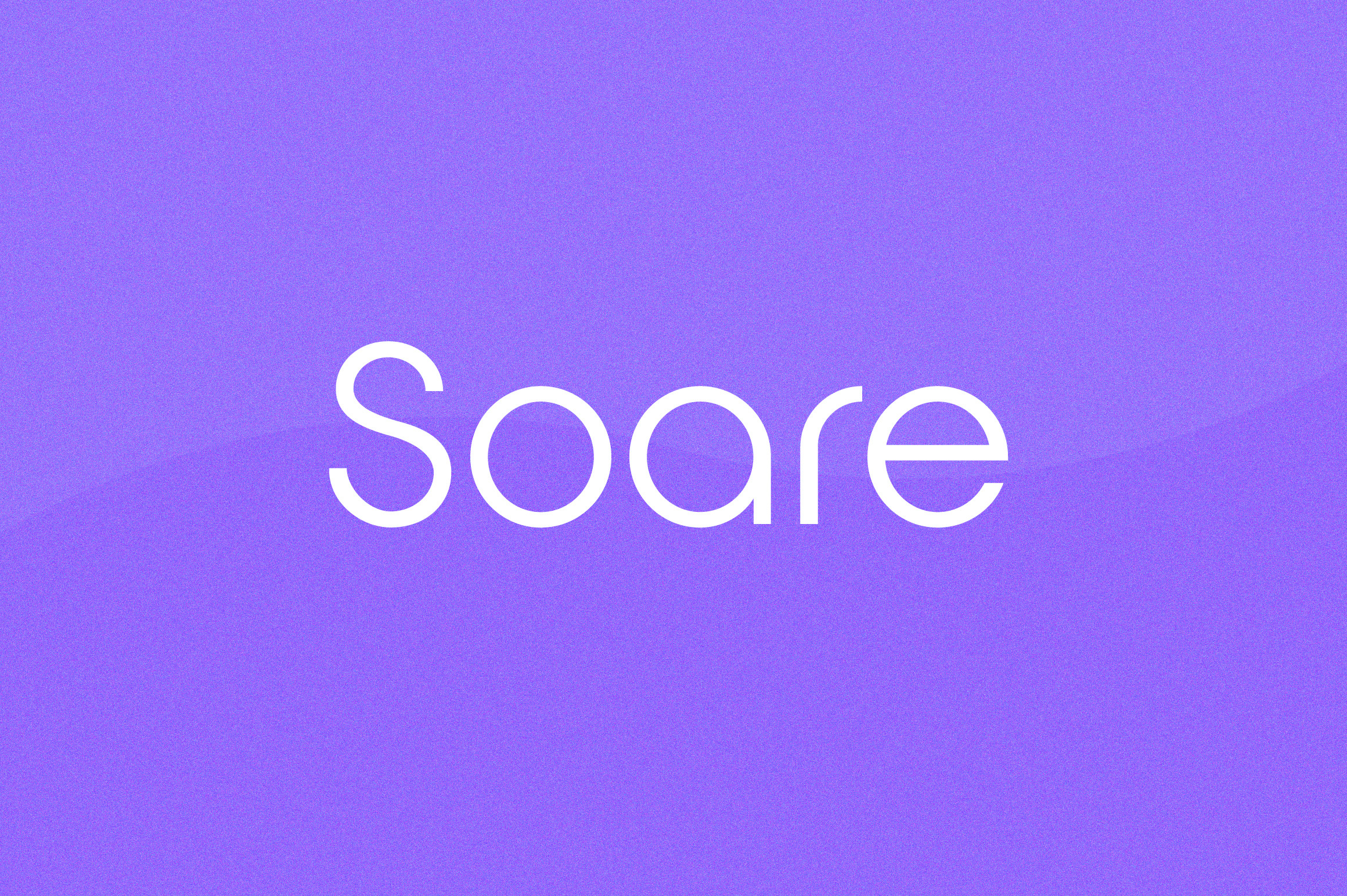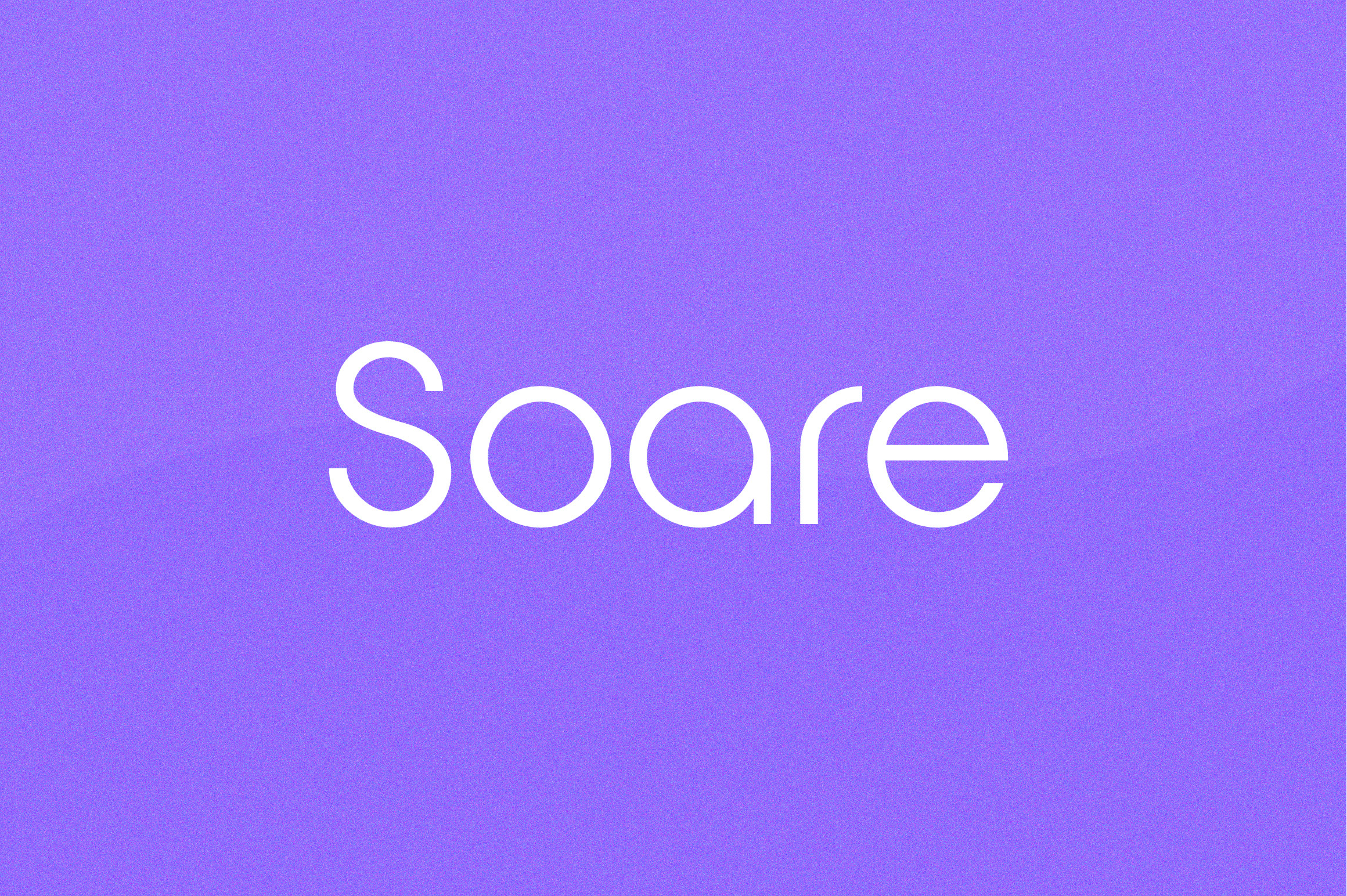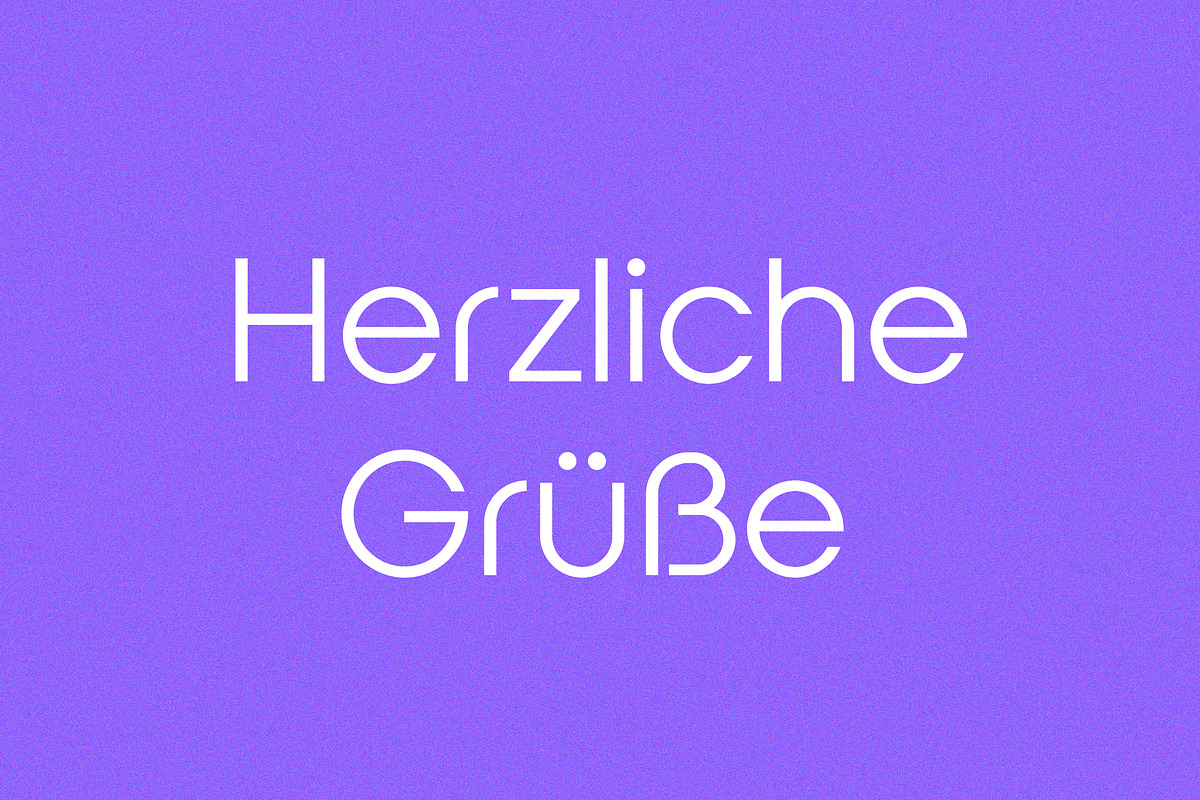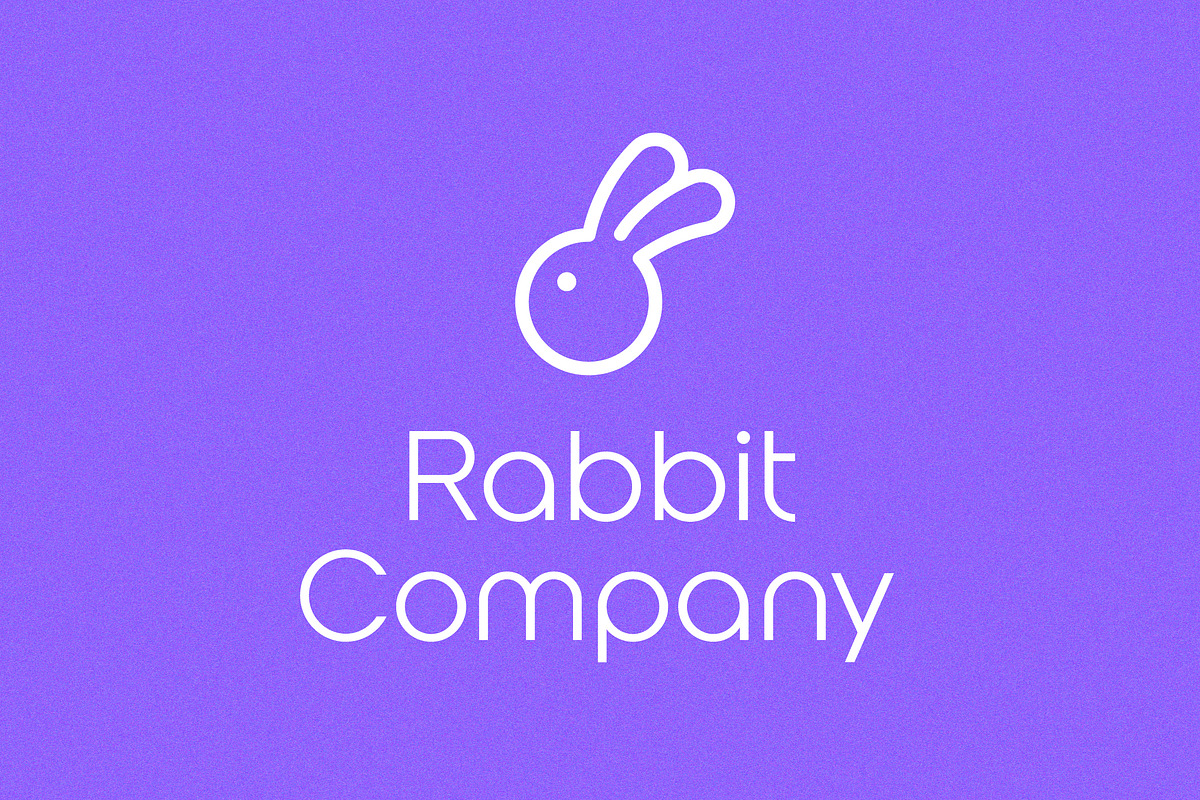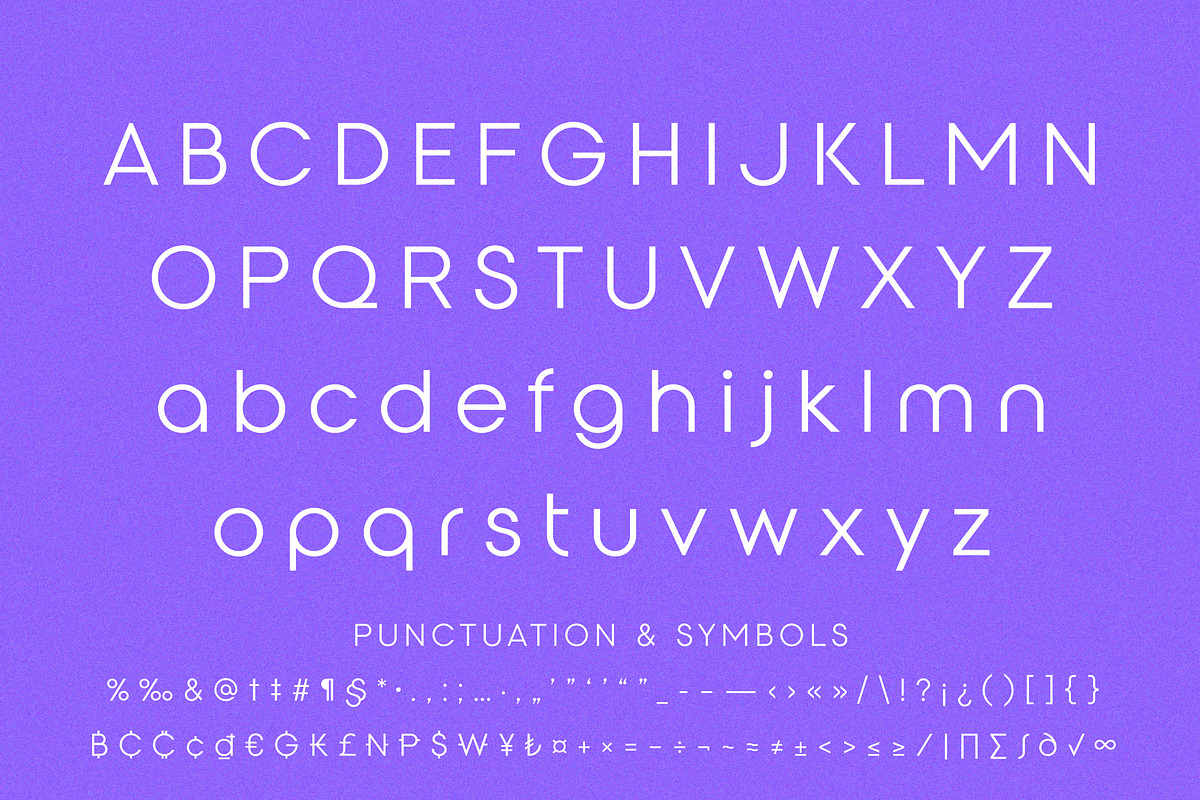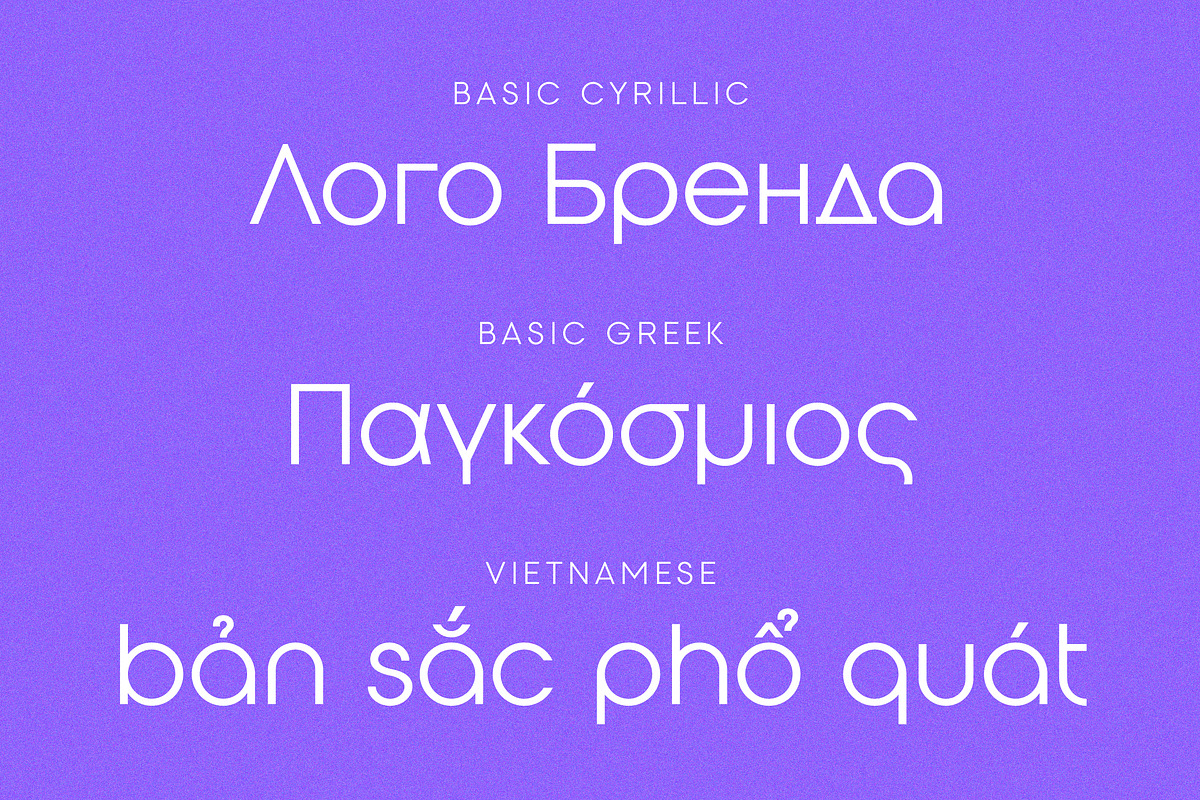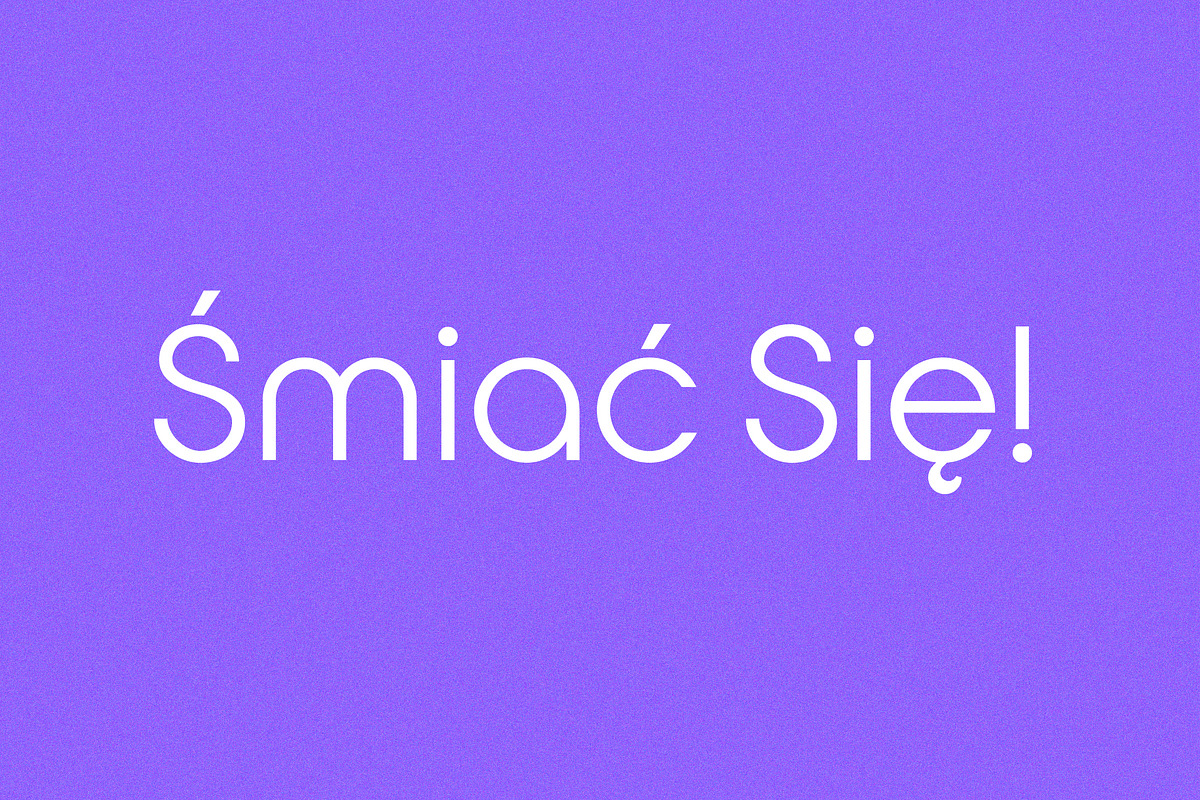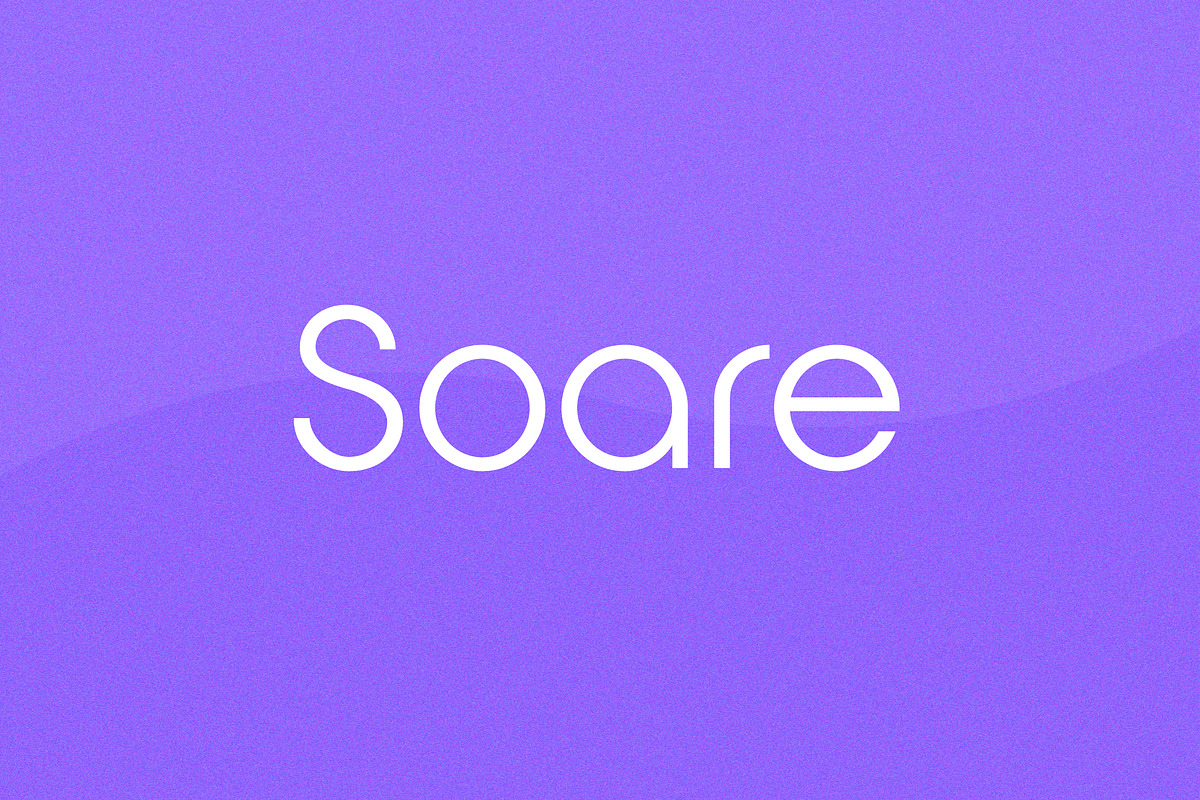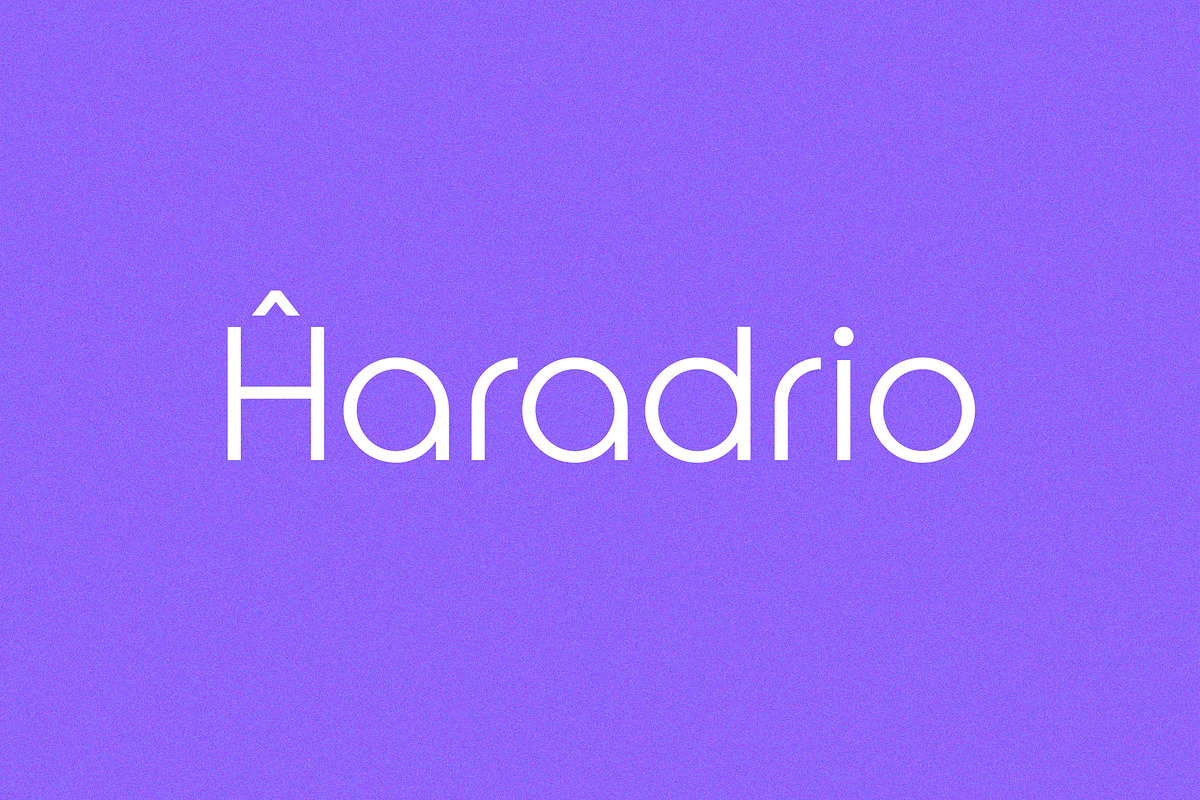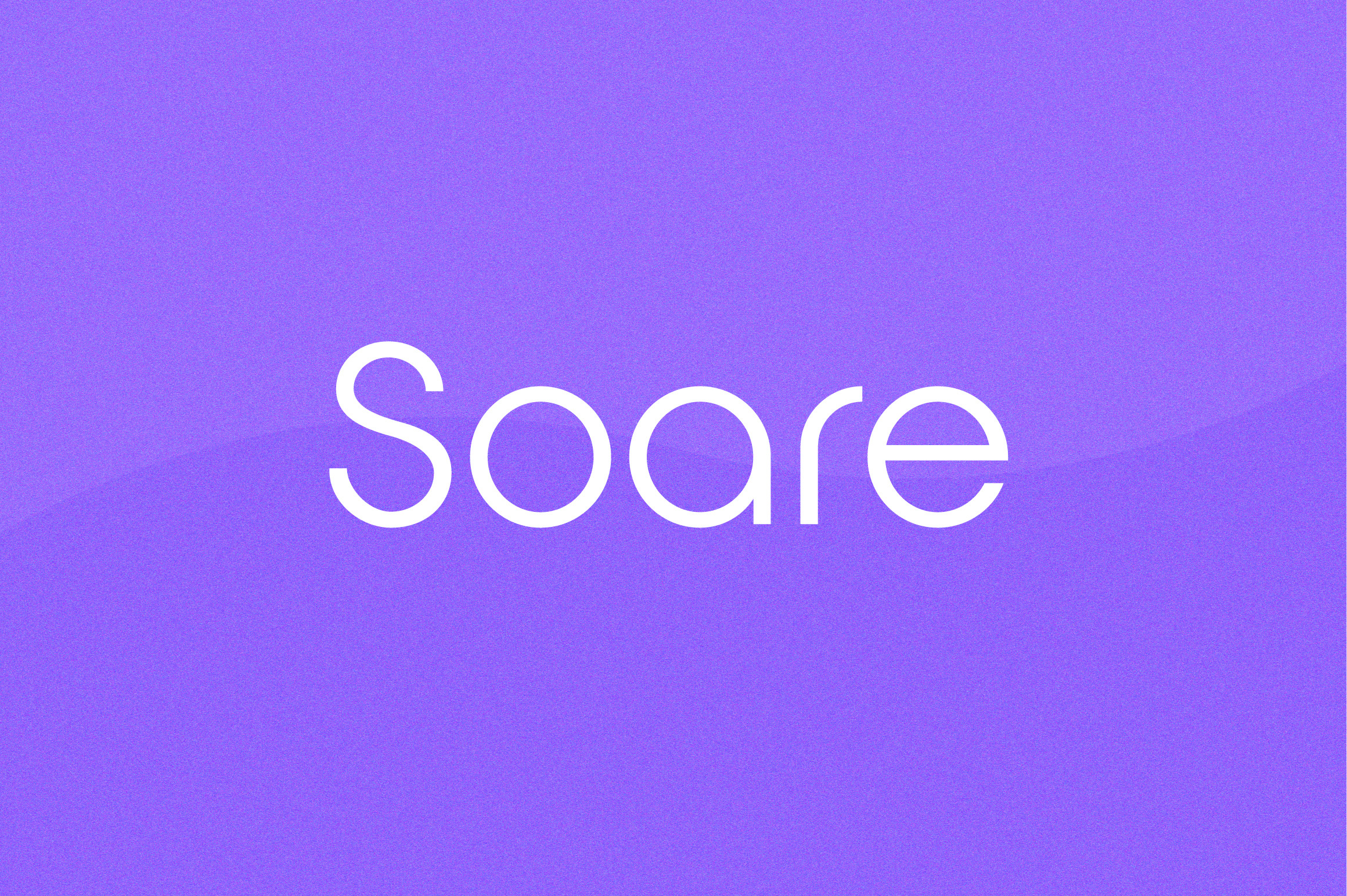
Soare Logo Font
Soare is a special font for your logo & branding.
Every character is designed for a good logo, so not suitable for a long text.
673 Glyphs & 230 Languages: Extensive Latin / Cyrillic / Greek / Vietnamese
Concept: Calm / Modern / Natural / Stylish / Unique